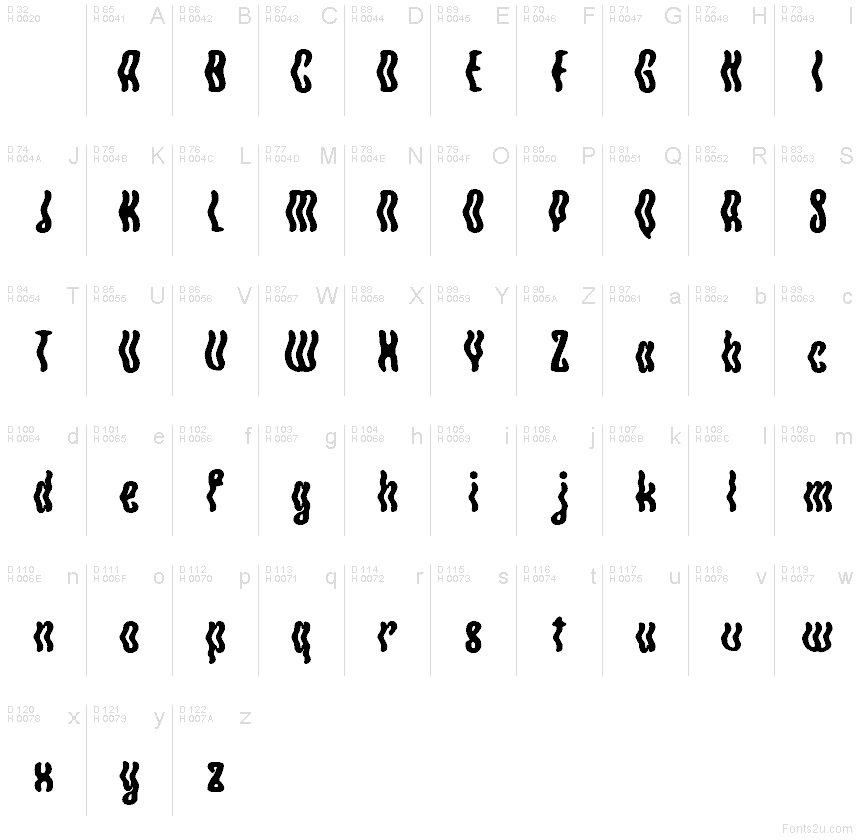
CSLachenDrawn-Regular Demo
CS Lachen Drawn font by Craft Supply Co. is a free bold distorted condensed display font. Part of the CS Lachen family, it leans into a melted, hand-drawn rhythm—thick, inky strokes wobble like heatwaves, with swollen curves and tight counters that keep it readable even as it ripples. The condensed width packs punchy headlines into narrow spaces without losing that gooey, tactile vibe.
Using CS Lachen Drawn, titles cling together with a hypnotic pulse that shines on gig posters, Halloween promos, psych-rock album art, craft beer labels, DIY zines, and edgy social graphics. This free font works beautifully large to let the waviness breathe. Pair it with a plain, neutral grotesque for body copy, or keep copy minimal and let the headline do the talking.